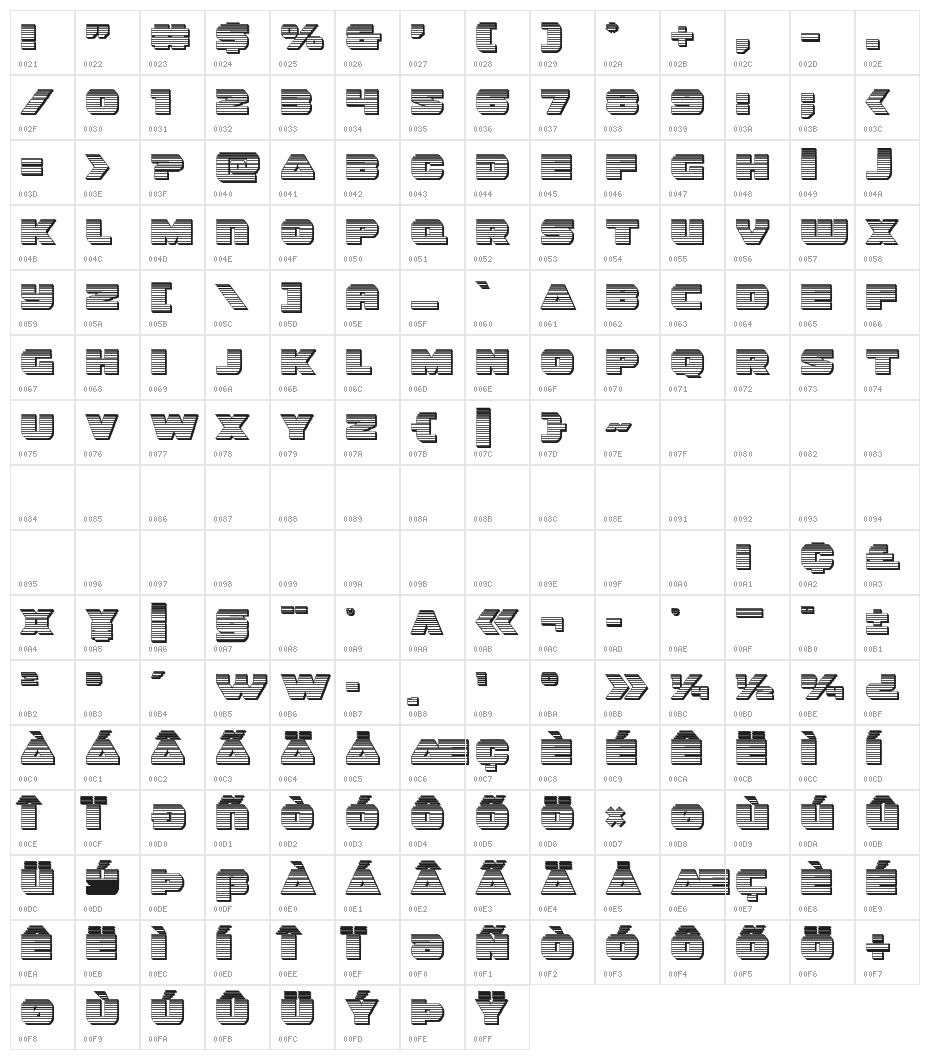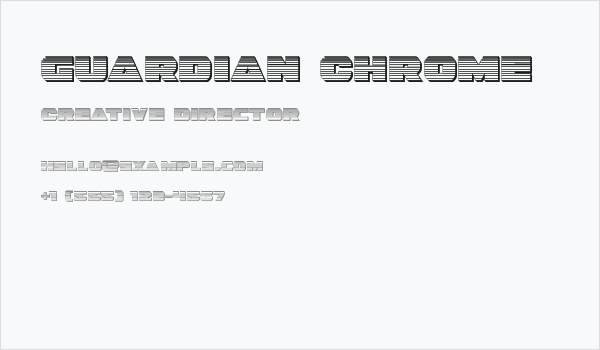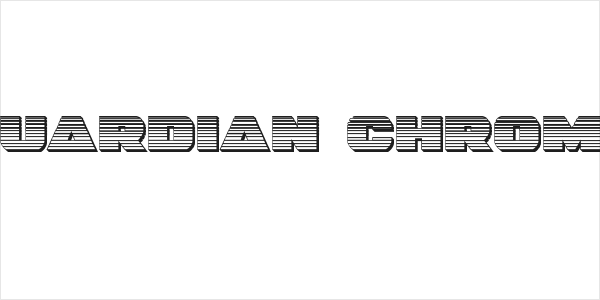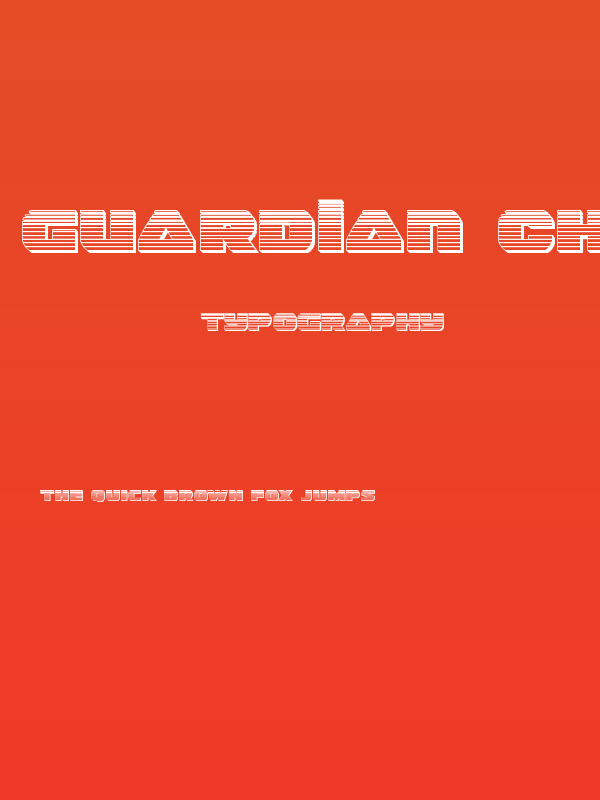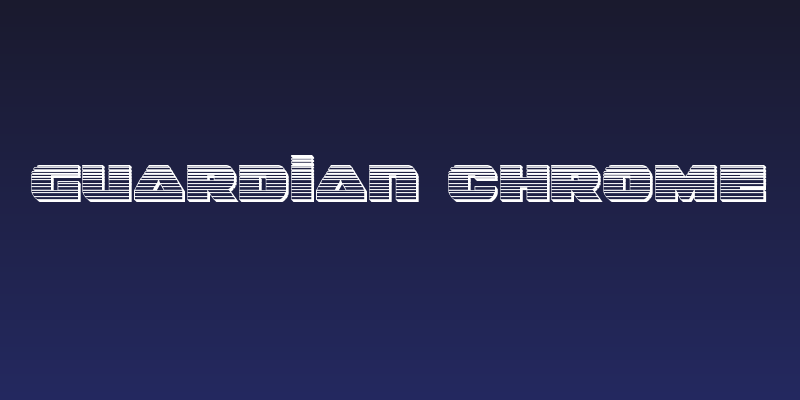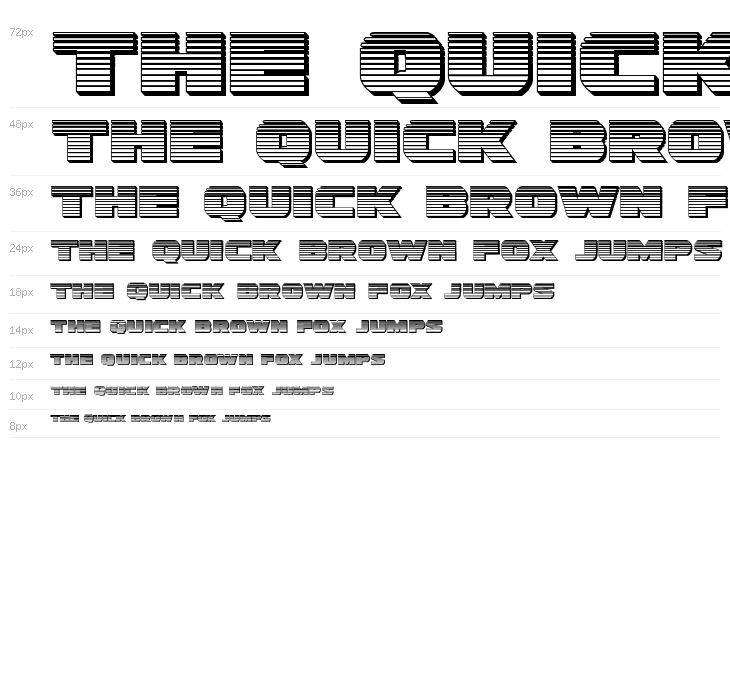
Guardian Chrome Font
Guardian Chrome Description
This font features a bold, decorative style with a unique striped pattern running horizontally across each character. The design is highly geometric, with sharp angles and clean lines that give it a futuristic and industrial feel. The uppercase and lowercase letters maintain a consistent width, contributing to a uniform appearance. The numerals and special characters follow the same design principles, ensuring cohesion across all glyphs. This font's distinct style makes it stand out, ideal for projects that require a strong visual impact.
Overall StyleFuturistic, Industrial
Proposed ProjectsIdeal for branding, posters, album covers, and any project needing a bold, eye-catching typeface.